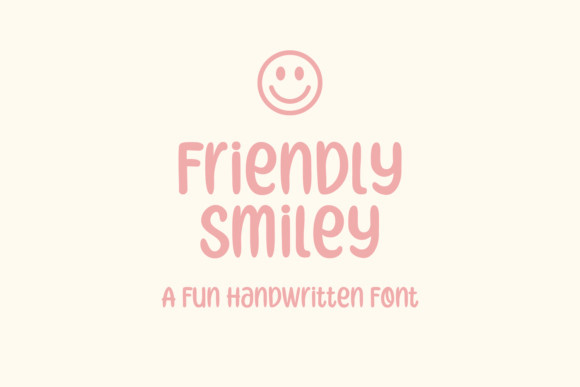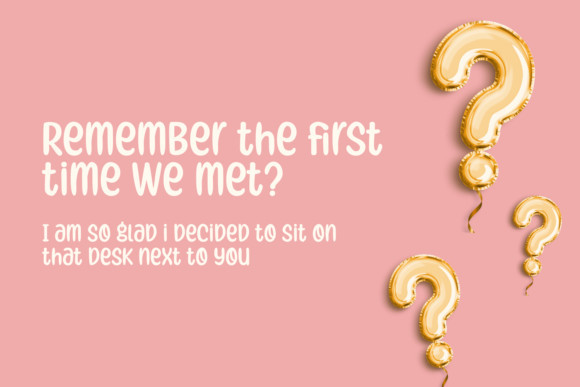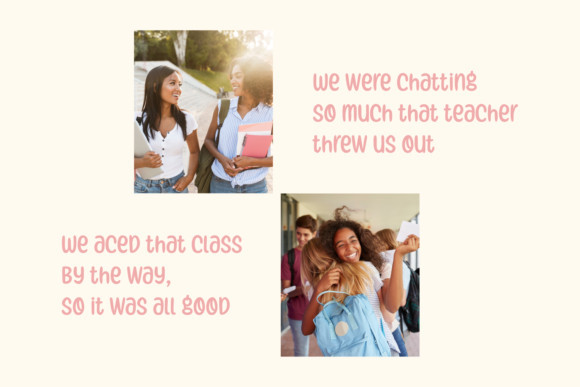
Friendly Smiley Font
Friendly Smiley is a fun, natural and informal handwritten font. No matter the topic, this font will be an incredibly asset to your fonts’ library, as it has the potential to elevate any creation.